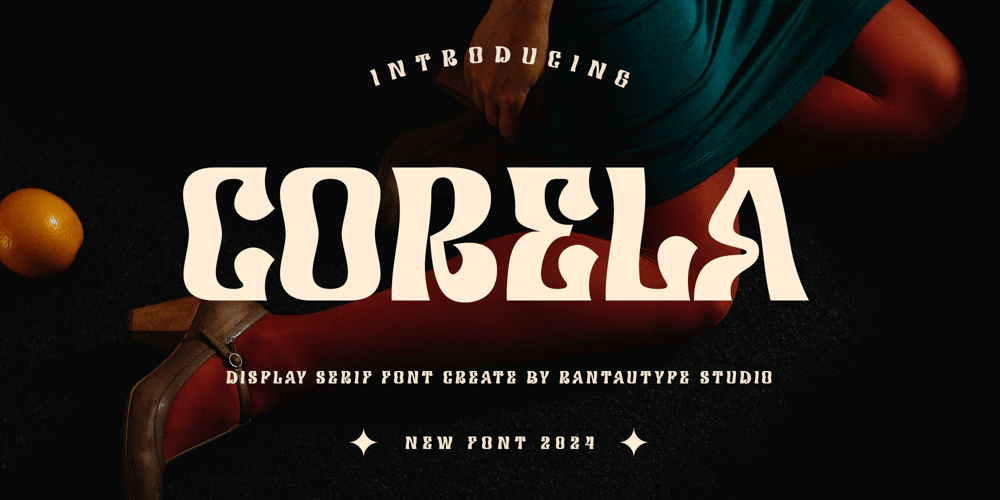
Corela
Corela font
Corela Font Family was designed by Yudi Pratama Chandra and published by RantauType. Corela contains 2 styles and family package options. Corela is a unique display serif font that embraces classic and nineteen vibes but look elegant. Its delicate curves and refined details create a sense of sophistication and femininity. Corela brings a touch of charm and sophistication to branding, editorial designs, and more. We keep this font looks fashionable, elegant, luxury, premium, modern, catchy and easy to use. With its versatility and contemporary appeal,Corela is a beautiful choice for any creative endeavor, chic, lifestyle design such as logos, title, cover, branding, display, magazine and more. Now you using Corela to elevate you design or branding.Features: Standar letter A-Z and a-z Numberial and Functional Alternate and Ligature Works on PC & Mac Simple installations Accessible in Adobe Illustrator, Adobe Photoshop, Adobe InDesign, even work on Microsoft Word. PUA Encoded Characters – Fully accessible without additional design software. Fonts include Multilingual Support for: Afrikaans, Albanian, Asu, Basque, Bemba, Bena, Breton, Chiga, Cornish, Dutch, English, Estonian, Filipino, Finnish, Friulian, Galician, Gusii, Indonesian, Irish, Italian, Kabuverdianu, Kalenjin, Kinyarwanda, Luo, Luxembourgish, Luyia, Machame, Makhuwa-Meetto, Makonde, Malagasy, Manx, Morisyen, North, Ndebele, Nyankole, Oromo, Portuguese, Quechua, Romansh, Rombo, Rundi, Rwa, Samburu, Sango, Sangu, Scottish, Gaelic, Sena, Shambala, Shona, Soga, Somali, Spanish, Swahili, Swedish, Swiss, German.Thank you for your purchase!Hope you enjoy with our font!